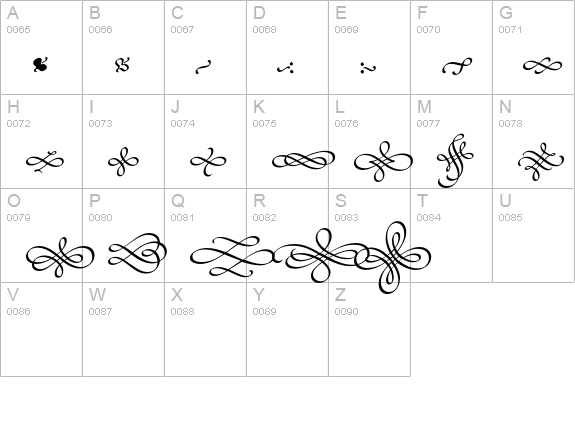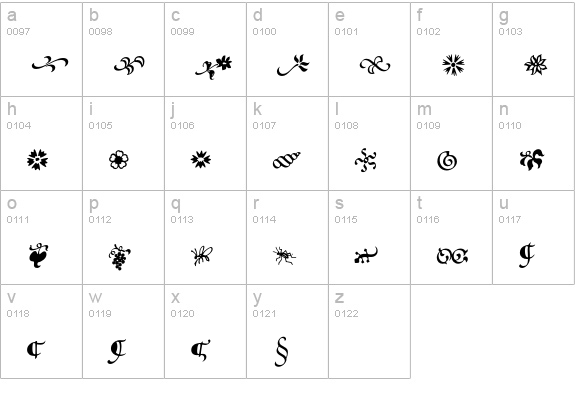
Poetica Supp Ornaments Font Details
Poetica Supp Ornaments font is a stunning collection of ornate and elegant decorative elements designed to add a touch of sophistication and charm to your creative projects. This exquisite font features a harmonious blend of intricate swirls, delicate flourishes, and intricate patterns that will elevate any design to new heights of beauty and grace. Each character in Poetica Supp Ornaments font is meticulously crafted with precision and care, ensuring that every detail is perfectly rendered for a truly luxurious and refined look. Whether you are creating invitations, wedding stationery, branding materials, or any other project that requires a touch of opulence, this font will undoubtedly make a lasting impression. The best part? Poetica Supp Ornaments font is available for free download at FontsMarket.com, allowing you to access this exceptional font and elevate your designs without any cost. Don't miss out on the opportunity to enhance your projects with the timeless elegance and sophistication of Poetica Supp Ornaments font. Download it now and let your creativity soar to new heights.